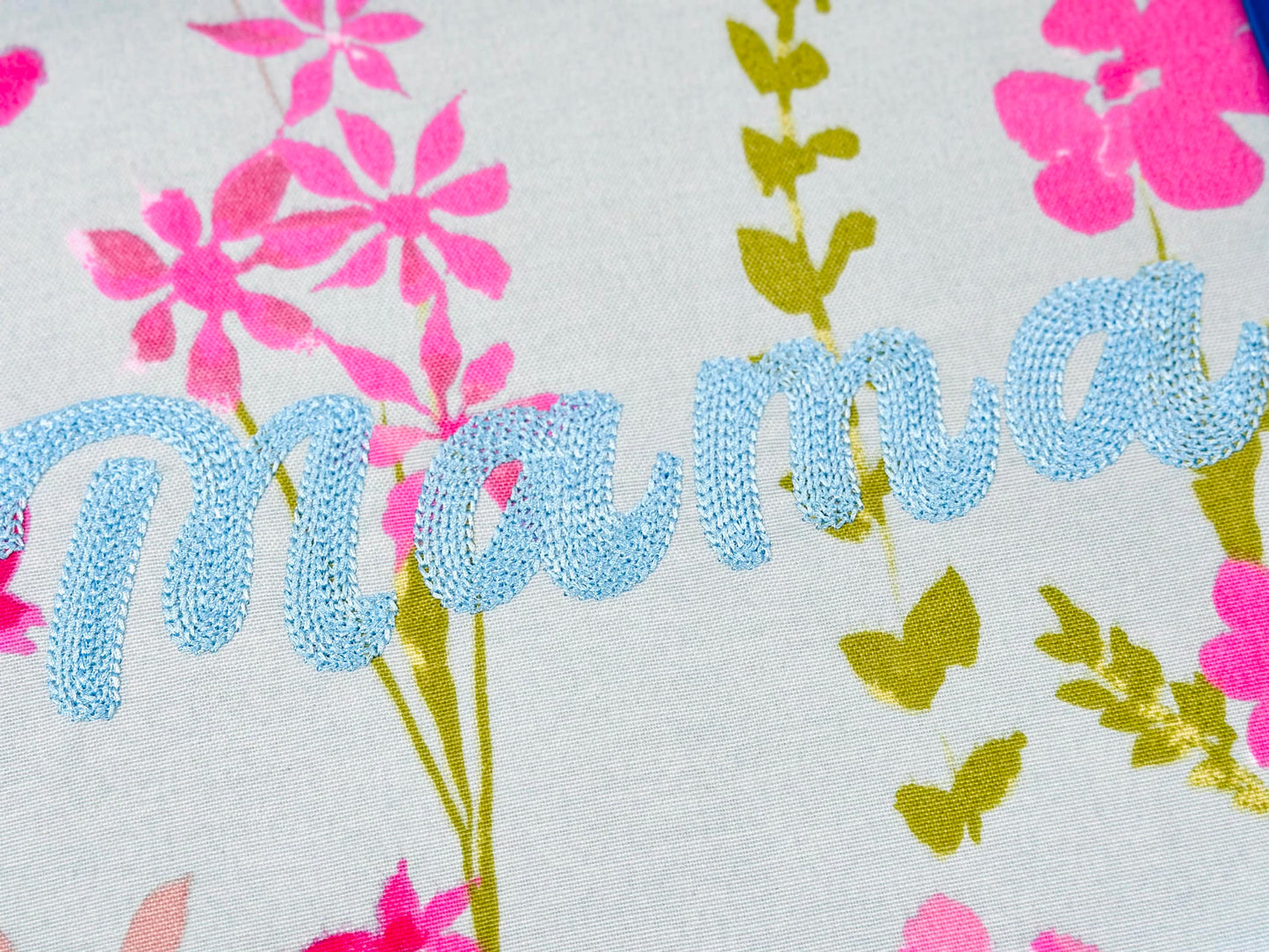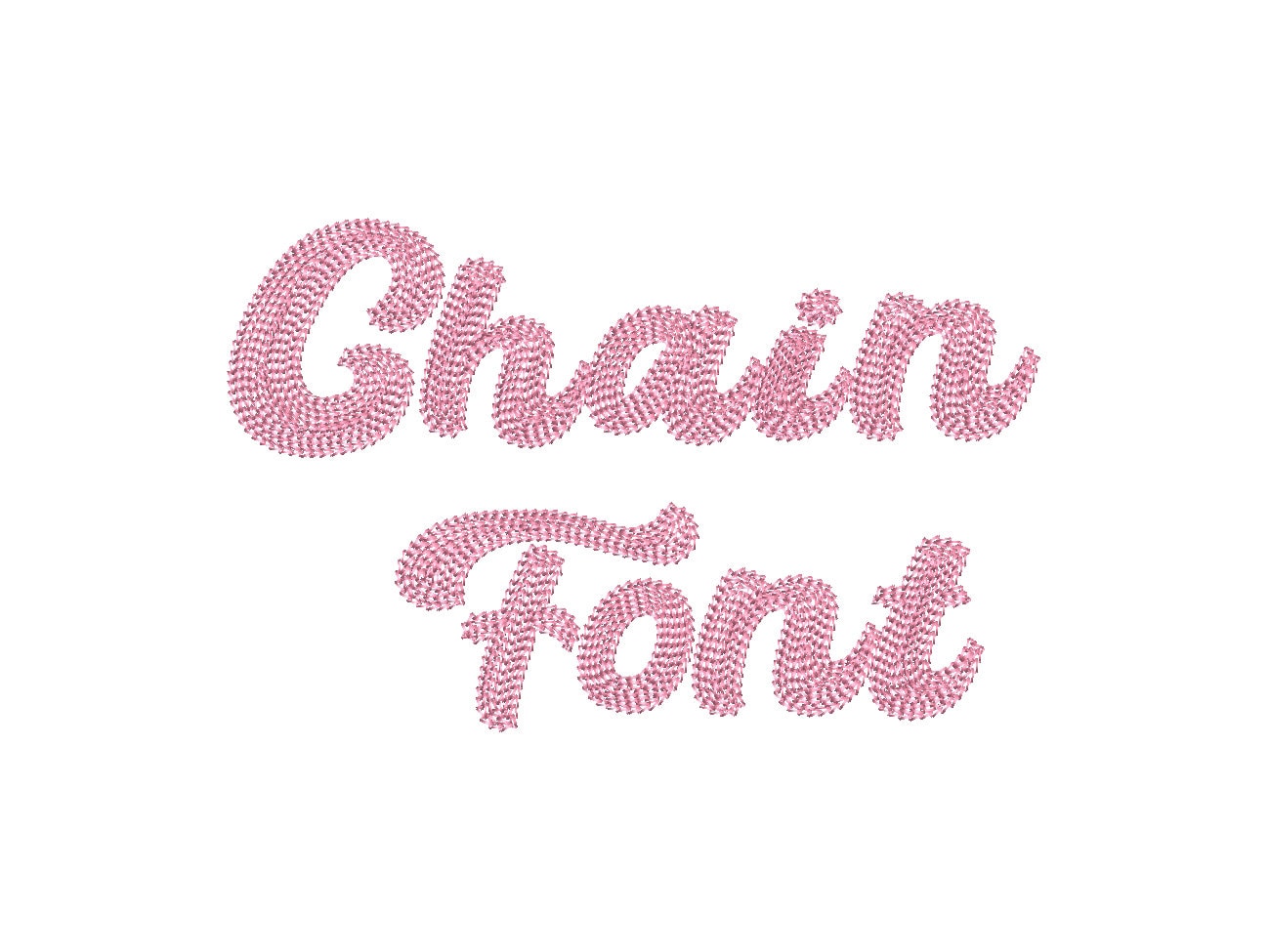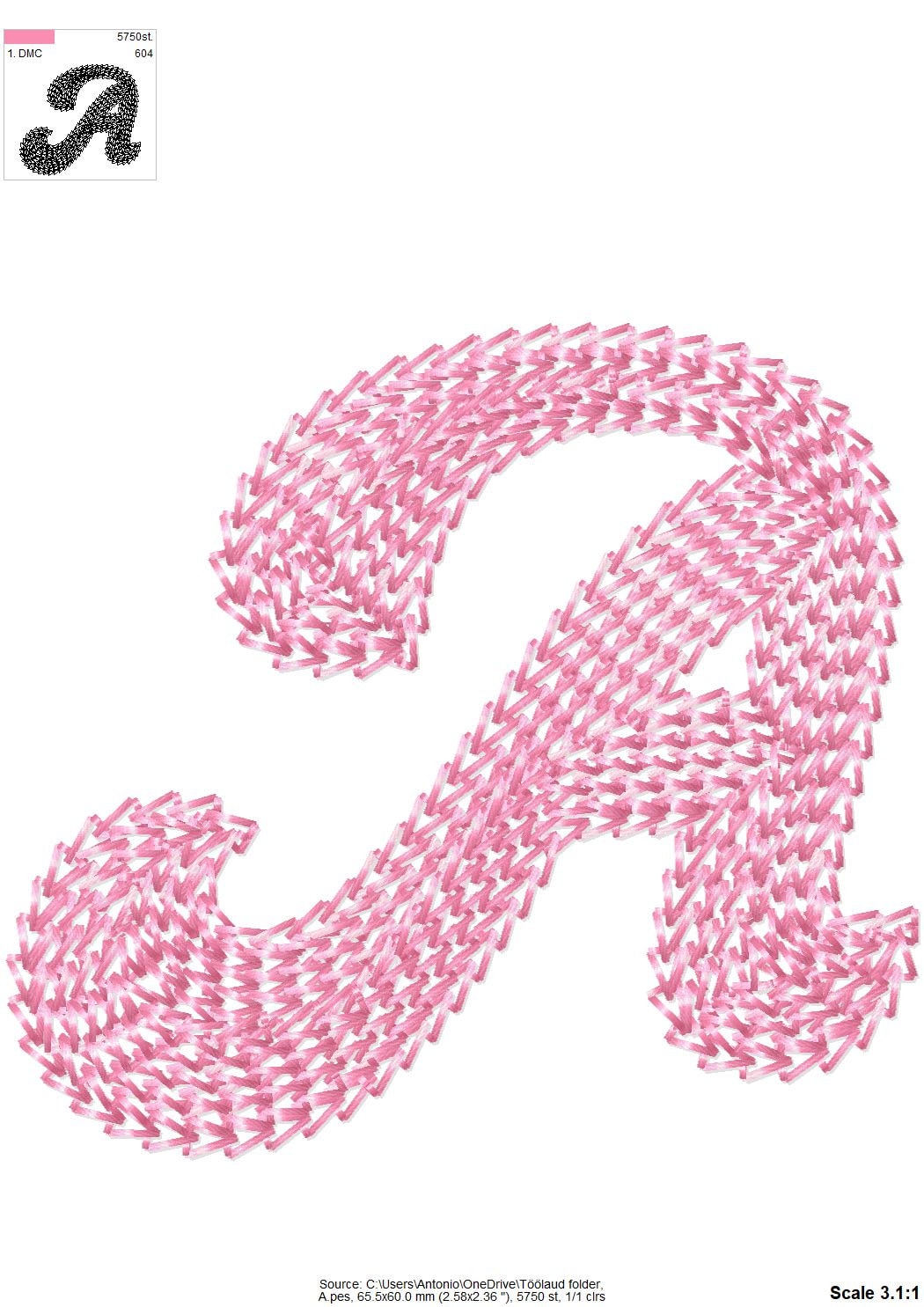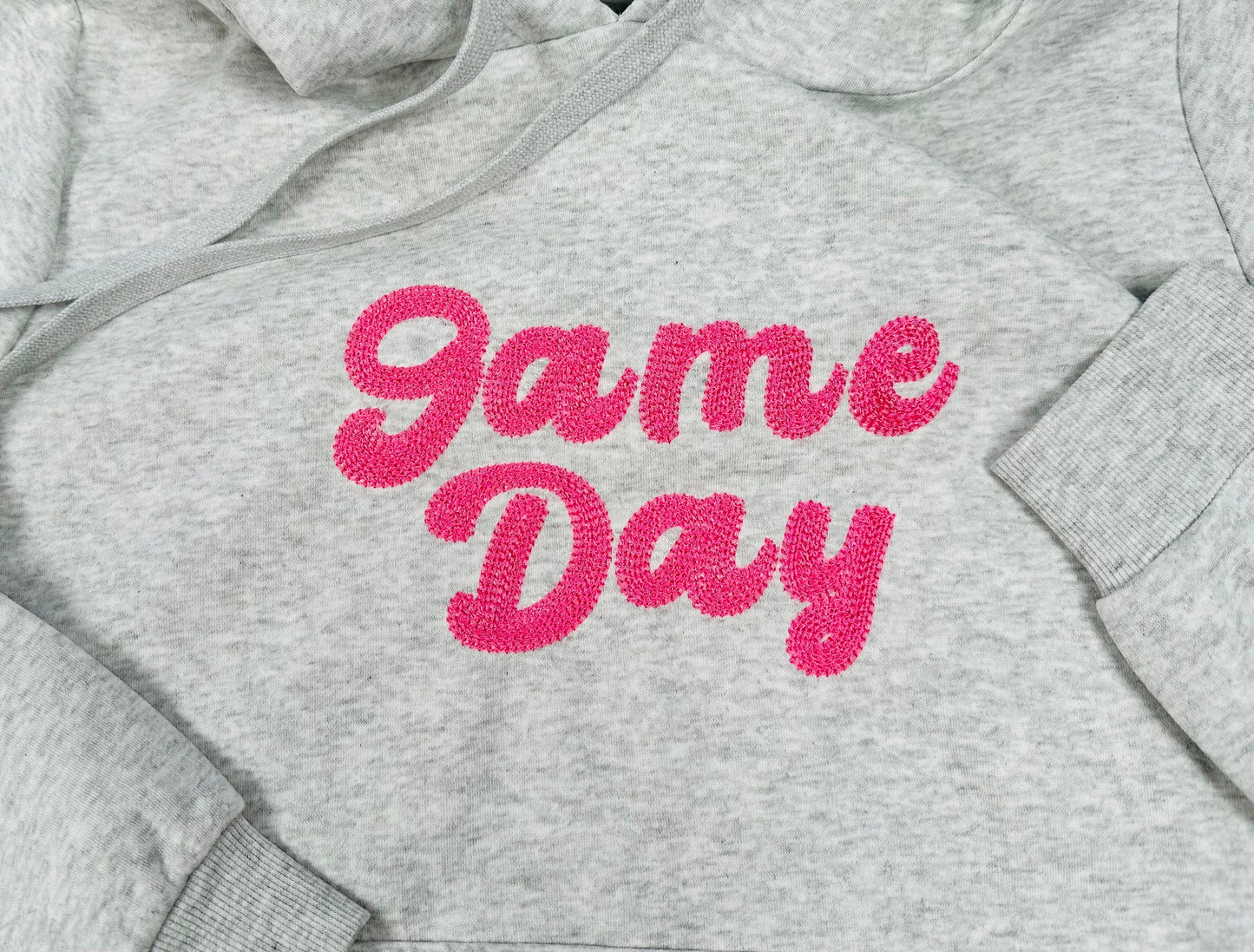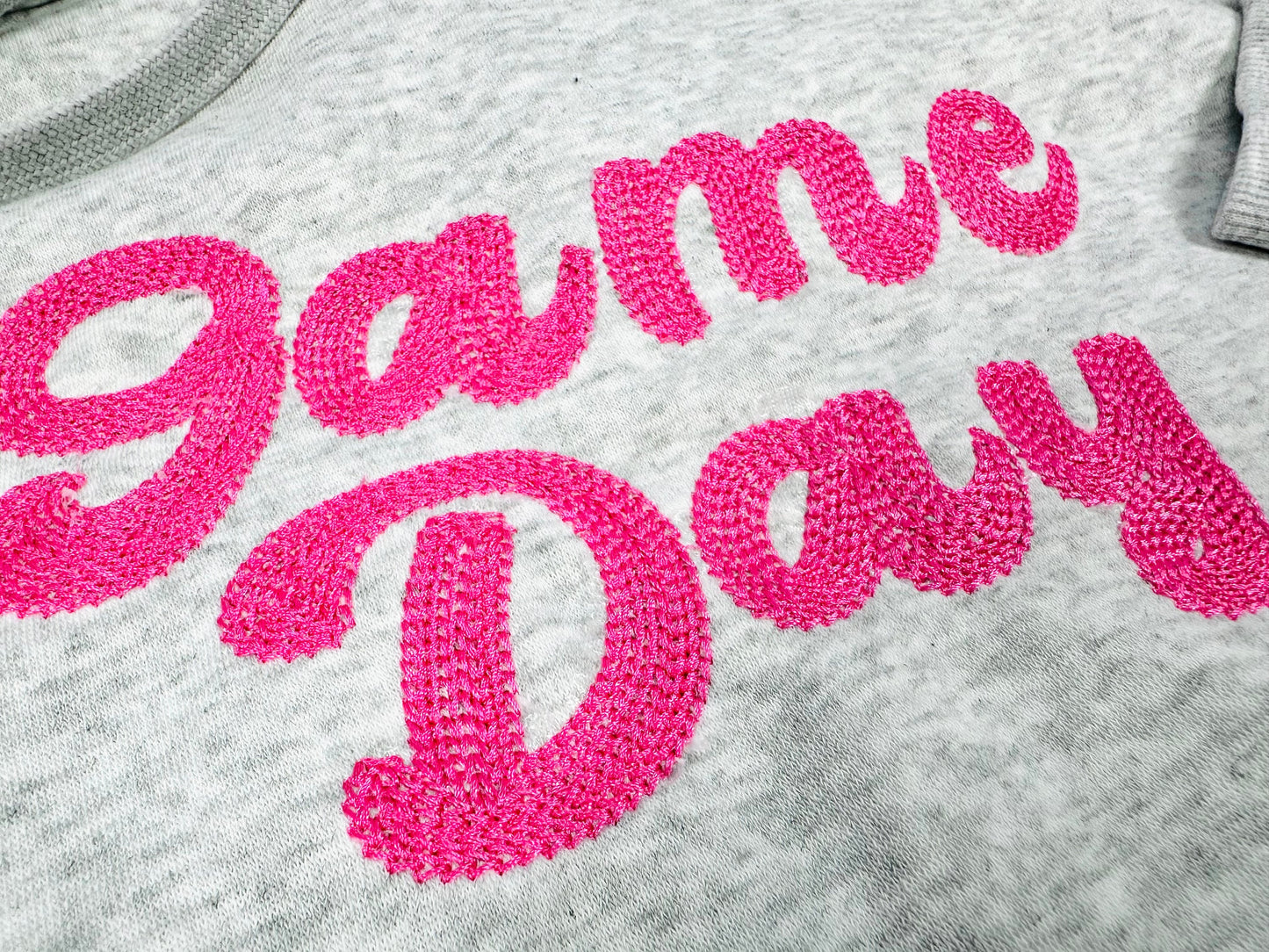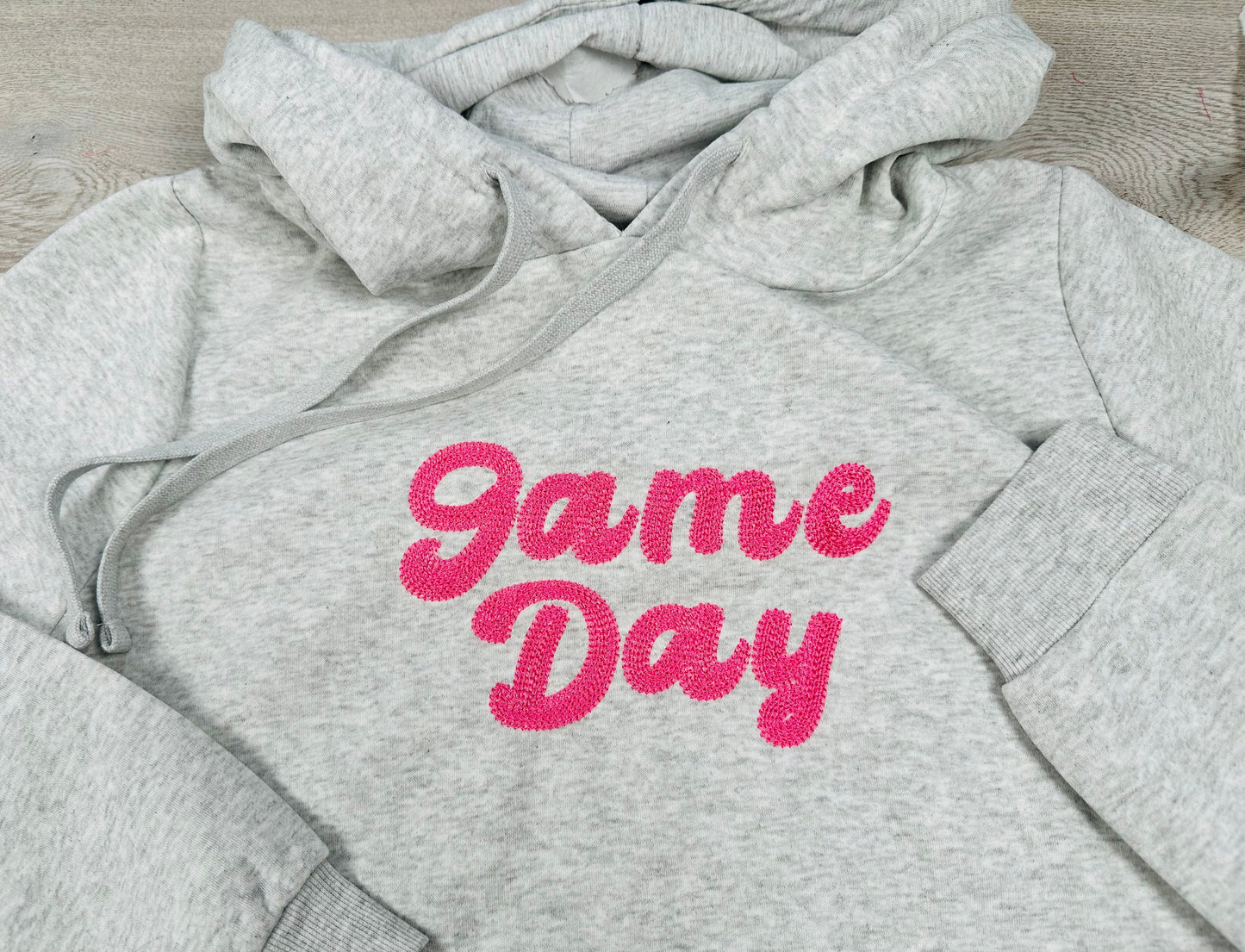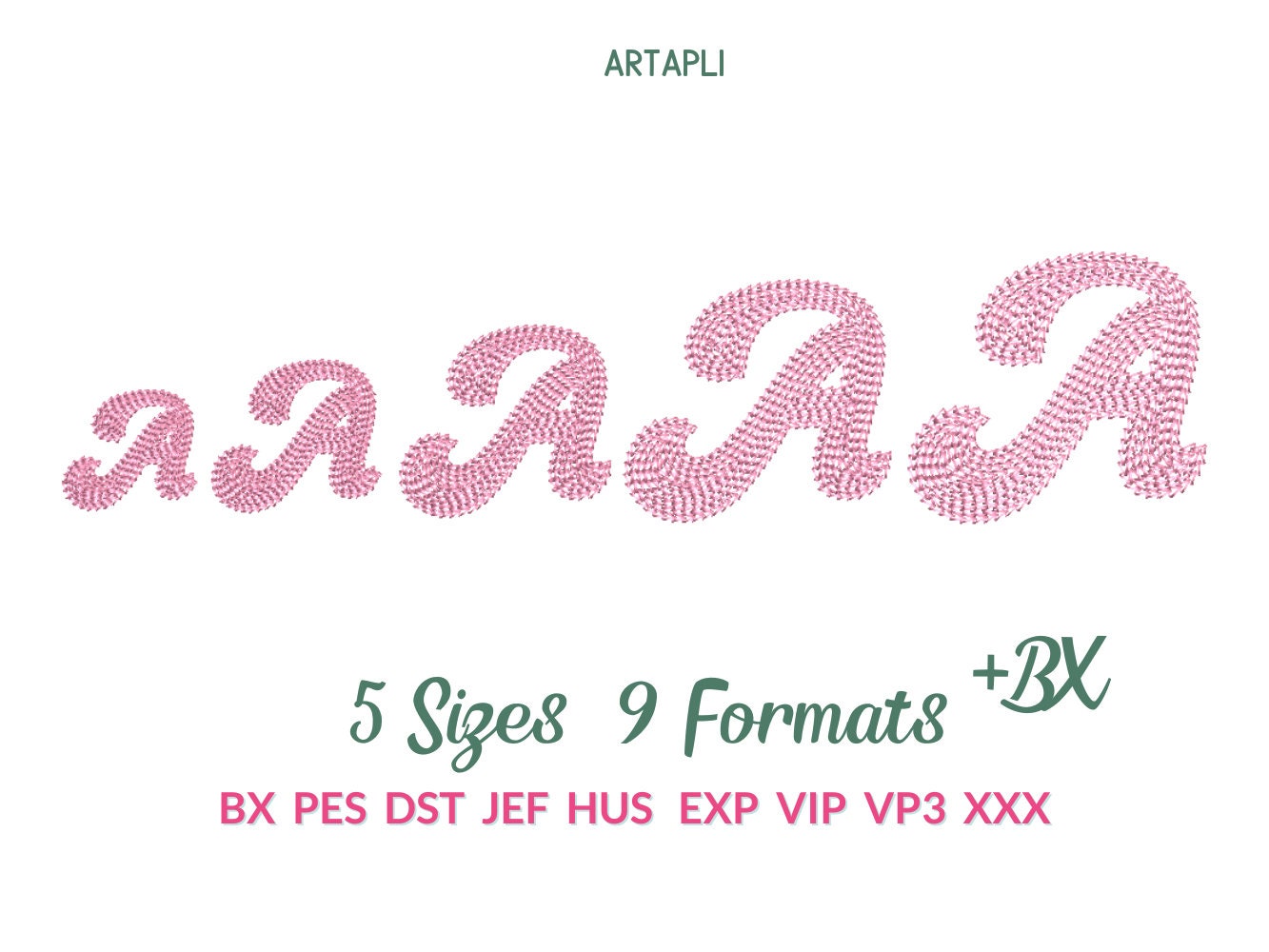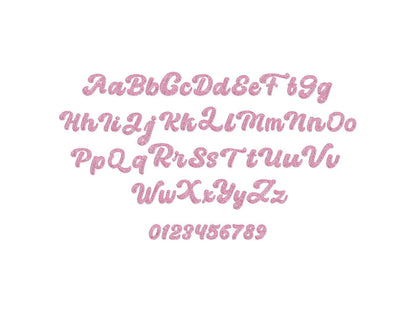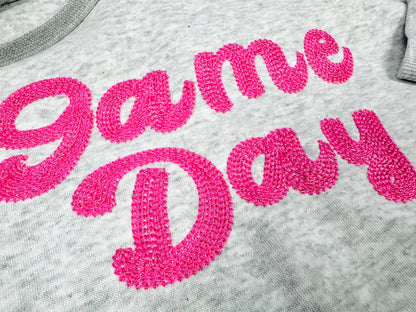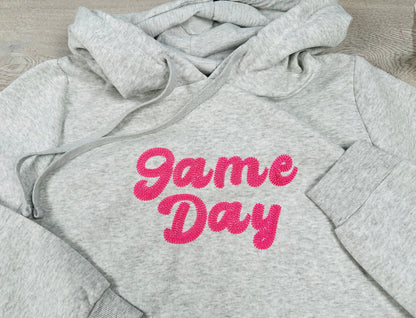
Or click to open the linkA cursive script with a textured chain fill and a hand-stitched look. Lovely for names and monograms on sweatshirts, towels and gifts.
Uppercase and lowercase letters, numbers 0 to 9 and an ampersand. Five sizes: 1.5, 1.9, 2.3, 3 and 3.3 inches.